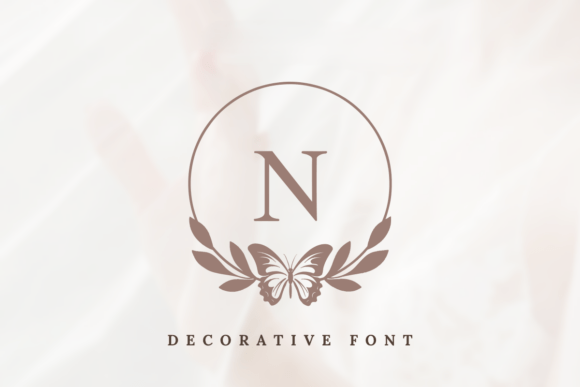
Introducing the Elegant Butterleaf Monogram Font: A Perfect Blend of Sophistication and Femininity
In the world of typography, a well-designed font can make all the difference in creating a lasting impression. For those seeking a typeface that exudes elegance, refinement, and a touch of femininity, the Butterleaf Monogram Font is an exceptional choice. This beautiful decorative font features refined serif initials enclosed in elegant frames, adorned with delicate butterfly and leaf accents. The result is a soft, feminine charm that effortlessly elevates any design to a new level of sophistication.
What is the Butterleaf Monogram Font?
The Butterleaf Monogram Font is a carefully crafted typeface that showcases exquisite serif initials within ornate frames. The addition of butterfly and leaf motifs brings a whimsical touch, balancing out the overall aesthetic. This font is perfect for designs that require a high level of elegance and poise, making it an ideal choice for beauty branding, stationery, logos, invitations, and more.
Key Design Features of the Butterleaf Monogram Font
- Refined Serif Initials: The font boasts beautifully designed serif initials that exude refinement and luxury.
- Elegant Frames: Each initial is enclosed in an elegant frame, adding a touch of sophistication and glamour.
- Delicate Butterfly Accents: The inclusion of delicate butterfly motifs brings a sense of whimsy and playfulness to the design.
- Leaf Accents: Intricate leaf details complement the butterfly accents, further enhancing the font’s natural and feminine appeal.
Ideal Uses and Applications of the Butterleaf Monogram Font
The versatility of the Butterleaf Monogram Font makes it suitable for a wide range of design projects. Here are some ideal applications:
- Beauty Branding: Create stunning beauty brand logos, packaging, and marketing materials that convey luxury and sophistication.
- Stationery: Elevate your stationery designs, including business cards, letterheads, and envelopes, with a touch of elegance.
- Logos: Design memorable logos for businesses that require a high level of refinement and poise.
- Invitations: Create beautiful invitations for weddings, baby showers, and other special occasions that exude sophistication and charm.
Tips for Effective Typography with the Butterleaf Monogram Font
To get the most out of the Butterleaf Monogram Font, consider the following typography tips:
- Pair with Neutral Fonts: Combine the Butterleaf Monogram Font with neutral fonts to create a balanced and harmonious design.
- Experiment with Colors: Try pairing the font with pastel shades or metallic colors to enhance its feminine and luxurious appeal.
- Pay Attention to Spacing: Ensure adequate spacing between letters and lines to maintain the font’s elegant and refined appearance.
Design Inspiration and Examples
The Butterleaf Monogram Font is perfect for designers seeking inspiration for their next project. Here are a few examples of how this beautiful font can be used:
- Wedding Invitations: Create stunning wedding invitations featuring the Butterleaf Monogram Font, complete with delicate butterfly and leaf accents.
- Beauty Brand Packaging: Design luxurious beauty brand packaging that showcases the font’s refined serif initials and elegant frames.
- Stationery Sets: Develop elegant stationery sets featuring the Butterleaf Monogram Font, perfect for business or personal use.
In conclusion, the Butterleaf Monogram Font is an exceptional choice for designers seeking a typeface that embodies elegance, sophistication, and femininity. With its refined serif initials, elegant frames, and delicate butterfly and leaf accents, this font is perfect for a wide range of design projects, from beauty branding to stationery and invitations. By incorporating the Butterleaf Monogram Font into your designs, you’ll be able to create stunning visual content that leaves a lasting impression.